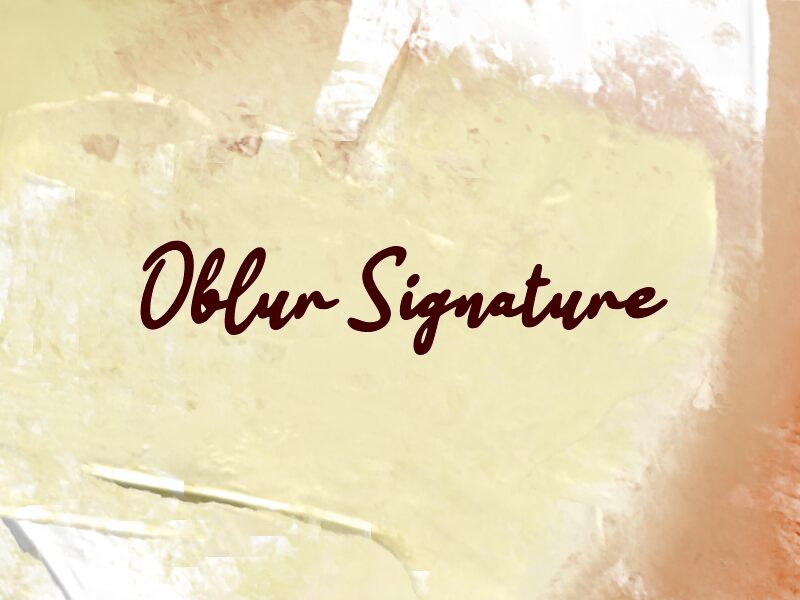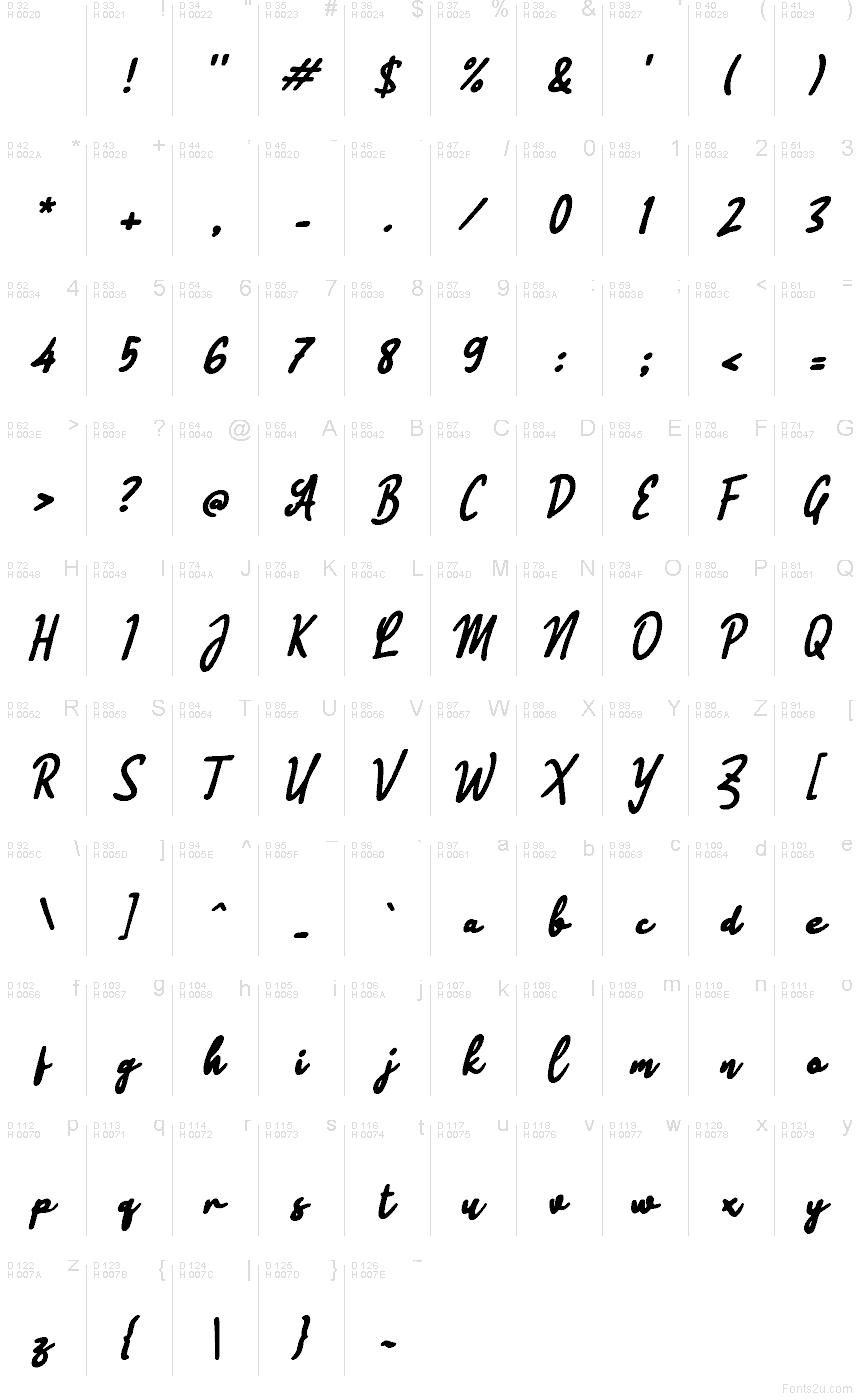
Oblur Signature
Oblur Signature font by wep is a free handwritten signature typeface with the loose, inky flow of a real marker pen. Its smooth curves, casual slant, and slightly varied stroke weight give it that “just signed” energy—confident but not stiff, personal without feeling messy. The letters link in an easy rhythm that feels like a fast, practiced signature, making any name or short phrase look instantly branded.
Using Oblur Signature, this free font shines on logos, watermark signatures, social media posts, product packaging, fashion branding, and modern invitation suites. It reads best at medium to large sizes where the brushy texture can breathe, and it pairs effortlessly with a clean sans serif for body text to let the signature style stay in the spotlight.